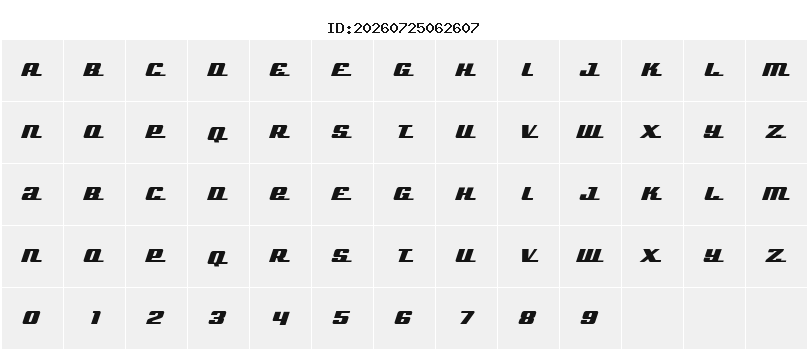
Global-SmallCapsScript Preview
• Font Name: Global-SmallCapsScript
• Full Font Name: Global-SmallCapsScript
• PostScript Name: Global-SmallCapsScript
About Global-SmallCapsScript.ttf
Global-SmallCapsScript.ttf is a modern, elegant sans-serif font designed for ultimate readability and visual harmony. Perfect for branding, headlines, web design, and print materials.